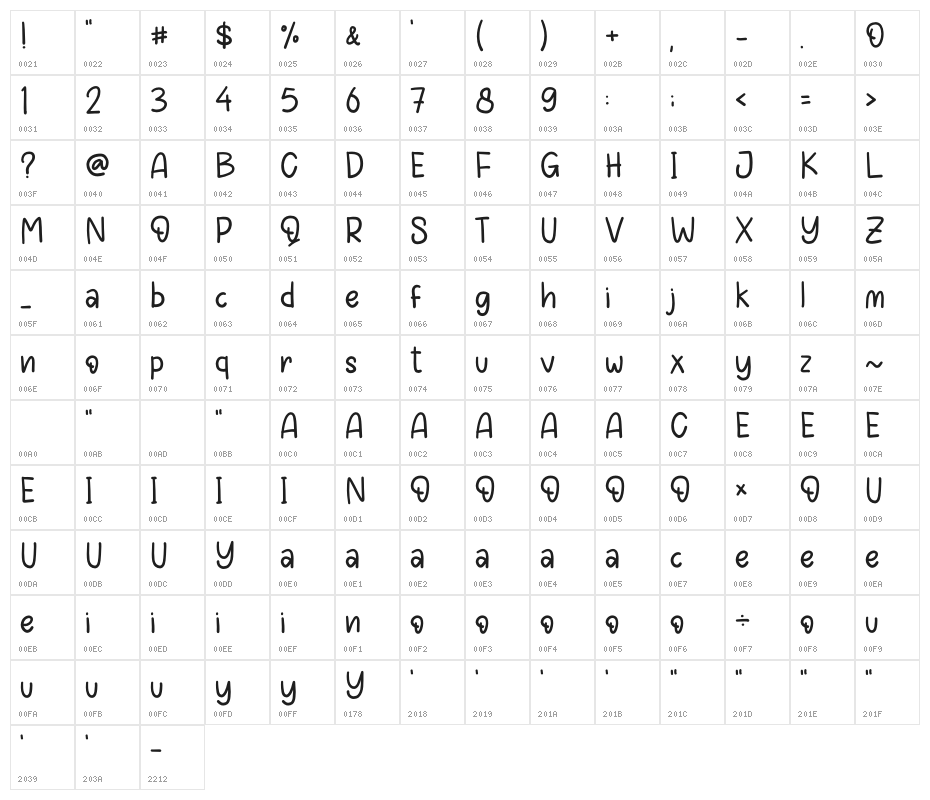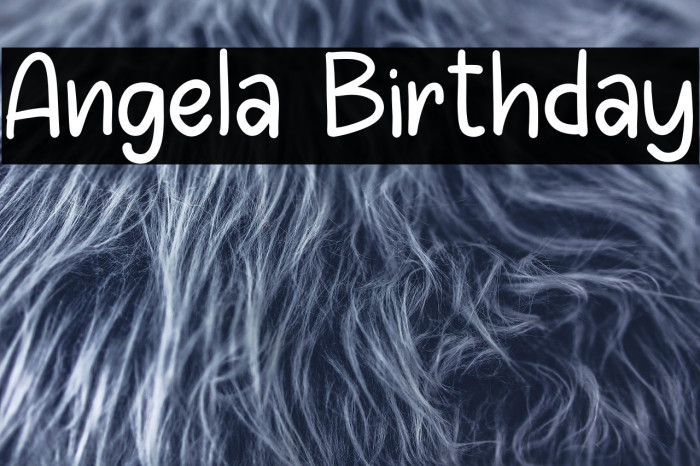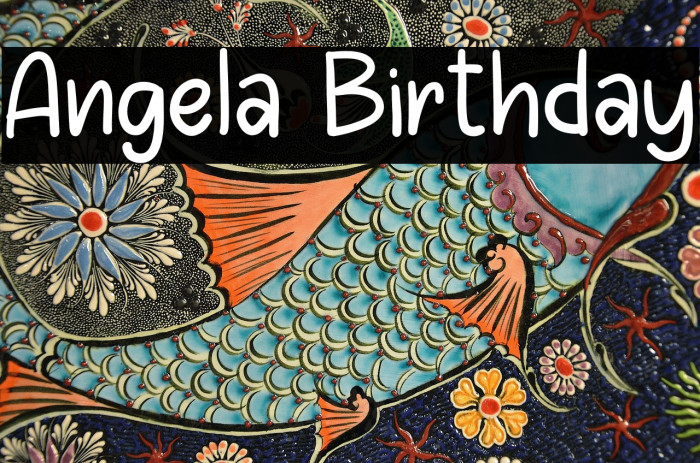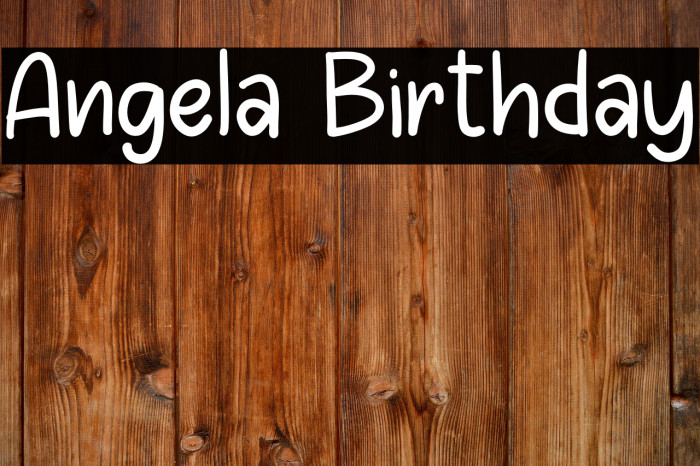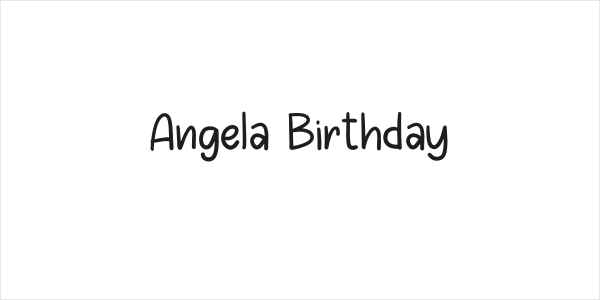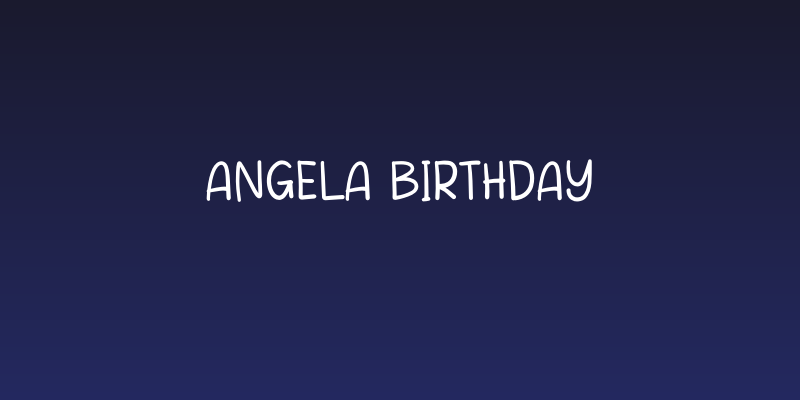
Angela Birthday Font
Angela Birthday Description
A playful, handwritten font with rounded edges and a casual style, suitable for informal and fun designs.
| Use Case | Headlines, Informal text, Invitations |
| Proposed Projects | Greeting cards, children's books, casual invitations. |